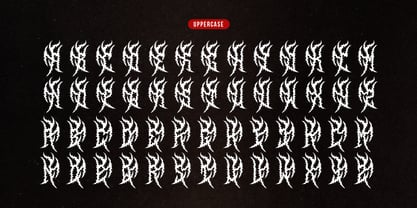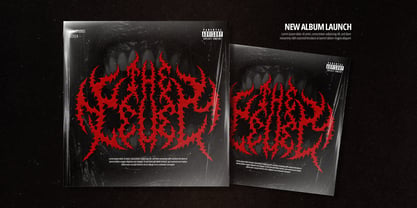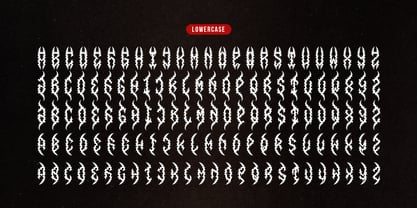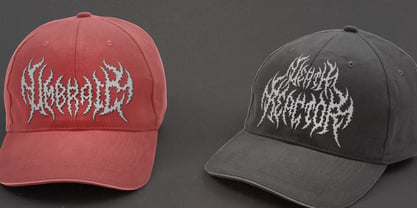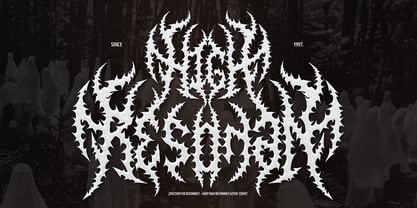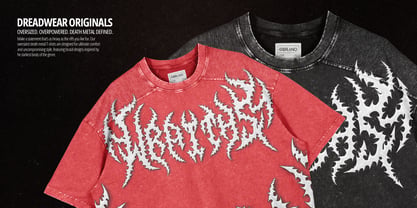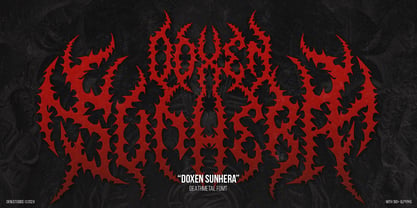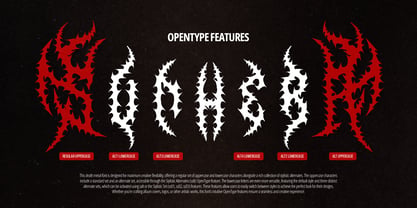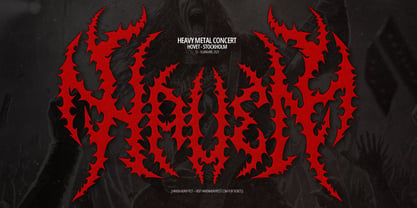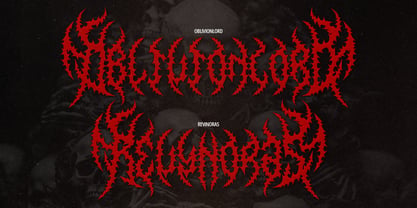
Doxen Sunhera
by Denustudio
The Doxen Sunhera Font Family was designed by Dede Nugraha and published by Denustudio. Doxen Sunhera contains 1 styles. More about this family
Doxen Sunhera | Death Metal Font, from Denustudios, suitable for any projects such as: logos, branding projects, homeware designs, product packaging, mugs, quotes, posters, shopping bags, t-shirts, book covers, name card, invitation cards, greeting cards, label, photography, watermark, special events, and all your other lovely projects that need a Death Metal Font taste.
• Regular and Italic
• Alternate and Ligature